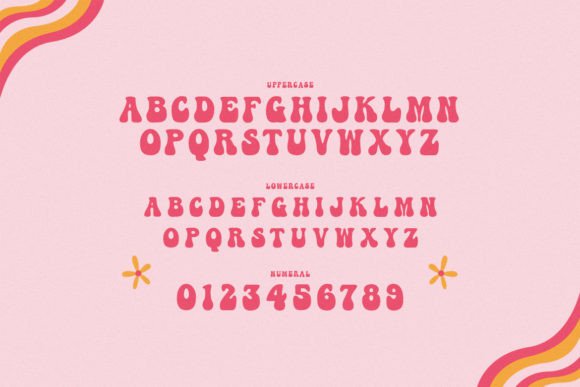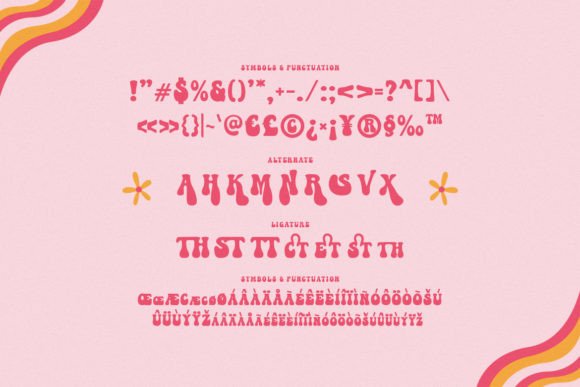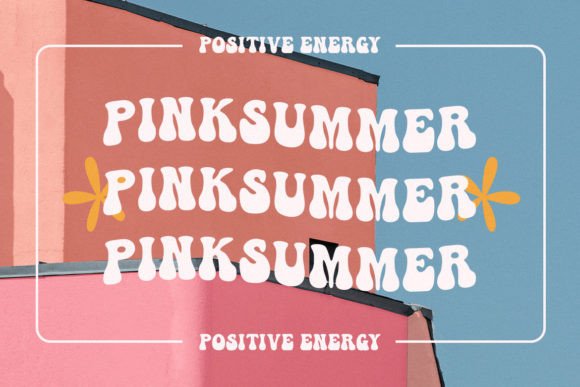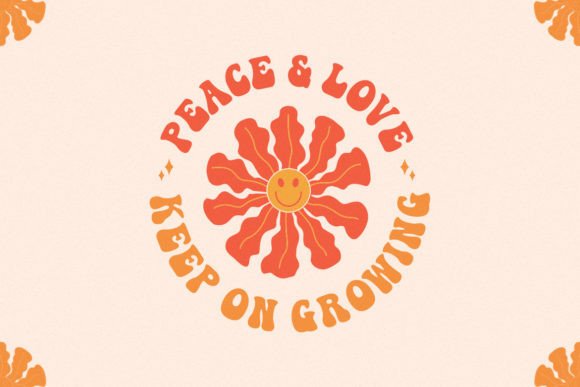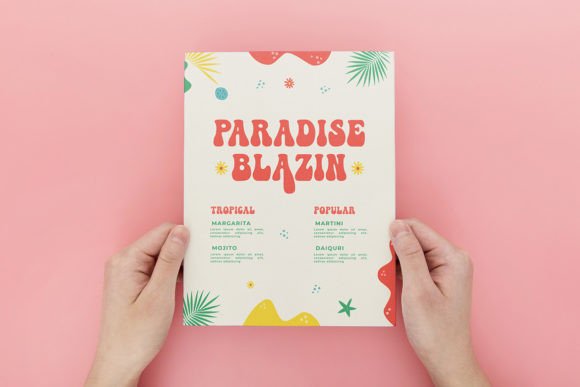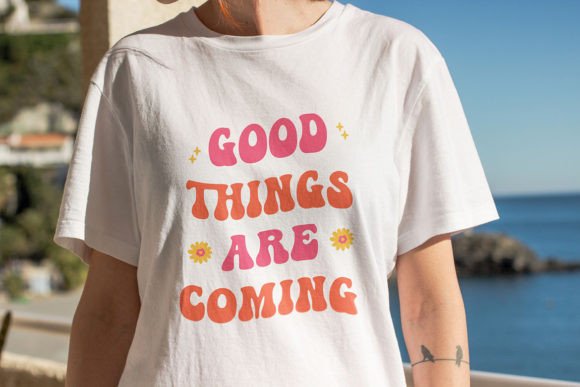
Introduction to Nowllhouse Font
Have you ever stumbled upon a font that instantly transports you back to a groovy era, full of colorful vibes and playful nostalgia? If so, you’re not alone. As designers, we’ve all experienced that ‘aha’ moment when we discover a font that perfectly captures the essence of our creative vision. For me, that moment arrived when I laid eyes on the Nowllhouse Font. Its whimsical charm and carefree spirit make it the perfect addition to any design project.
Key Features of Nowllhouse Font
- High-quality design resource ideal for creative projects, including logos, branding materials, and digital art.
- Unique, hand-drawn style with a transparent background, making it easy to layer and customize for any design project.
- Designed with a high resolution (up to 300 DPI) to ensure crisp and clear text, ideal for print and digital applications.
- Supports various languages, including Latin, making it a versatile design resource for global creative projects.
Honest Review: Nowllhouse Font
I recently stumbled upon the Nowllhouse Font and was immediately drawn to its unique style. This free download has quickly become a go-to design resource for my creative projects.
- ✨ High-quality design: The Nowllhouse Font is incredibly detailed and visually appealing.
- ✨ Versatility: It can be used for a wide range of creative projects, from branding to editorial design.
- ⚠️ Limited font variations: While the Nowllhouse Font is great on its own, it would be even better with more font variations to choose from.
- ⚠️ No transparent background option: If you’re working with a design that requires a transparent background, you may need to use a different font.
Overall, I’m impressed with the Nowllhouse Font and would highly recommend it to designers looking for a high-quality design resource. While it may not be perfect, its unique style and versatility make it a valuable addition to any design collection.
The Nowllhouse Font is commonly used in graphic design, logo creation, and visual branding. It’s also perfect for creating invitations, menus, and other print materials.
While Nowllhouse Font is known for its bold, playful appearance, Alex Brush Font offers a more refined and delicate look. Both fonts are available for free download, but Alex Brush Font has a more subtle, sophisticated feel that’s perfect for high-end design projects.
What is the recommended size and resolution for using the Nowllhouse Font?
The recommended size for using the Nowllhouse Font is between 12pt and 48pt, depending on the design project. For high-quality print design, it’s recommended to use a resolution of 300 DPI or higher. For web design projects, a resolution of 72 DPI or higher is sufficient. Always check the design requirements before using the font for a specific project.